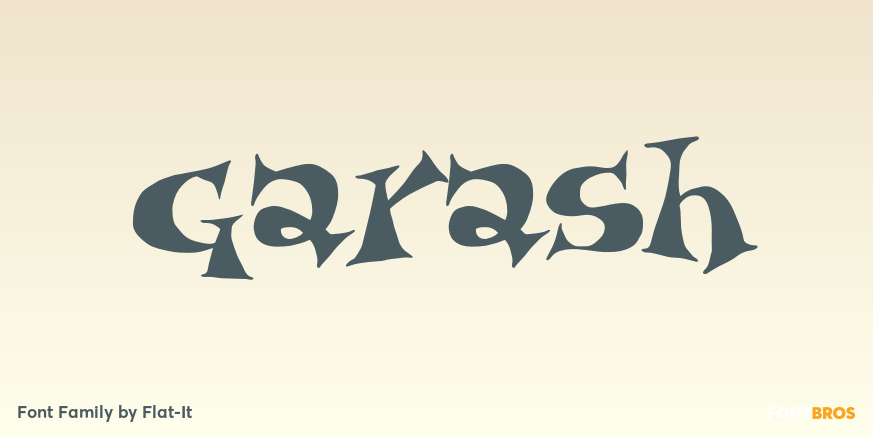
HomeFont BrosRetro (1936-1965)Garash Retro (1936-1965)Wacky Garash FacebookXPinterestWhatsApp 1 of 1 About Garash Very decprative script inspired by old lettering in eastern europe. very eycatching for picture books, toys for children.  DOWNLOAD ON FONT BROSThis font is sold and delivered by Font Bros. Font Canyon may earn a commission if you buy through this link. People also explored Elinda Font Cappung Font Pungo Font Majapahit Font Xiluman Font Khalitta Font Romantically Font Ceristian Enou Font Fighter Font 210 0 TagsGarashGarash Font Previous articleAugusta TorinoNext articleYummo LEAVE A REPLY Cancel reply Comment: Please enter your comment! Name:* Please enter your name here Email:* You have entered an incorrect email address! Please enter your email address here Website: Save my name, email, and website in this browser for the next time I comment. Personal Use Free Wanita Cantik Personal Use Free Read more about this font Planning Personal Use Free Read more about this font Propaganda Personal Use Free Read more about this font Juliagar Personal Use Free Read more about this font BLOG Best Fonts for YouTube Videos: Make Your Thumbnails Stand Out Best Fonts for YouTube Videos: Make Your Thumbnails Stand Out Choosing the right font can make a massive difference in how your YouTube videos perform.... Top 7 Google Fonts Alternatives for Faster and Privacy-Friendly Web Design (2025) Free vs Paid Fonts: Why Investing in Premium Fonts Is Worth It To increase your work productivity, choose the most readable fonts.